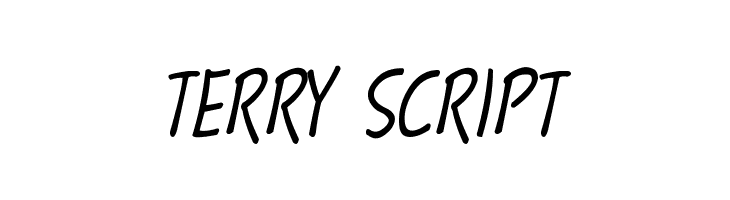
A lively, cursive script font with smooth, flowing lines and a handwritten appearance.
A whimsical and elegant font with tall, narrow letters and playful loops.
A decorative font with Easter-themed illustrations for each character.
An artistic, elongated font with a modern-retro vibe.
A bold, textured font with a vintage, distressed appearance.
A modern, monospaced font with a geometric and uniform design.
A playful, flowing script font with smooth, cursive strokes.
A bold, distressed font with a textured, vintage look.
A modern italic font with sleek, elongated characters and a dynamic style.